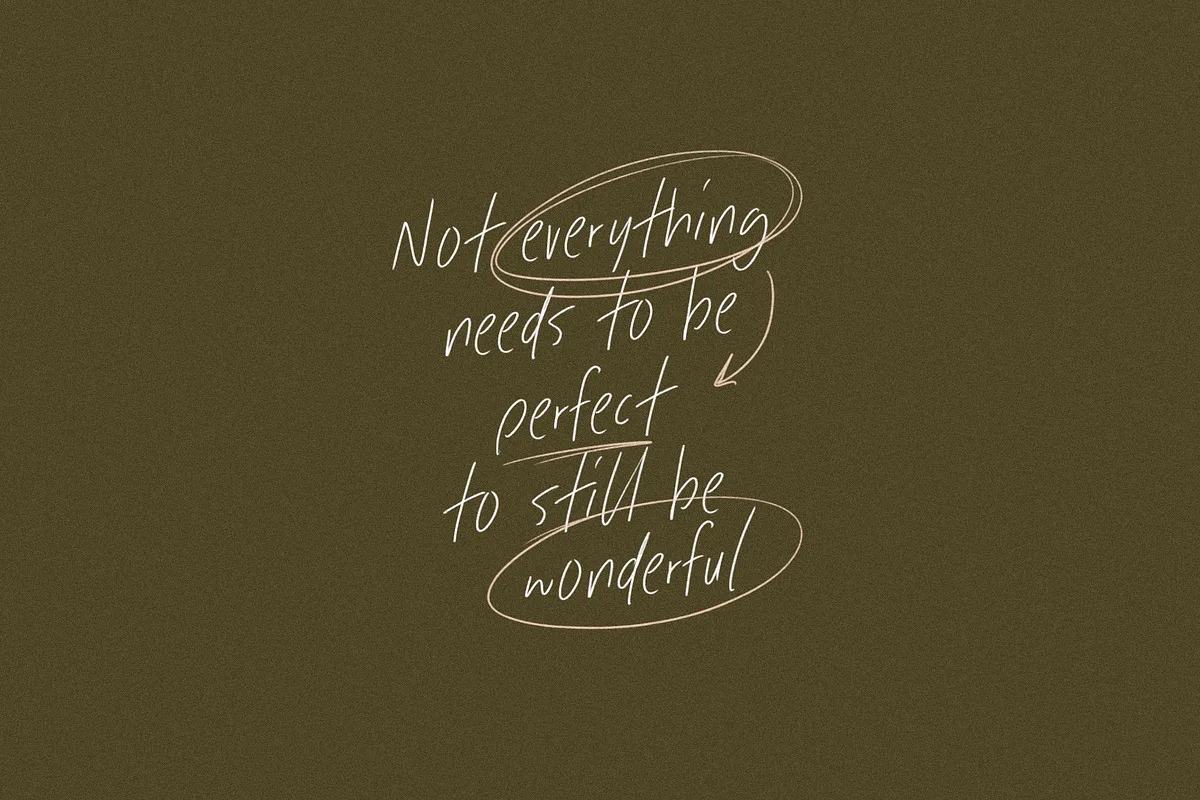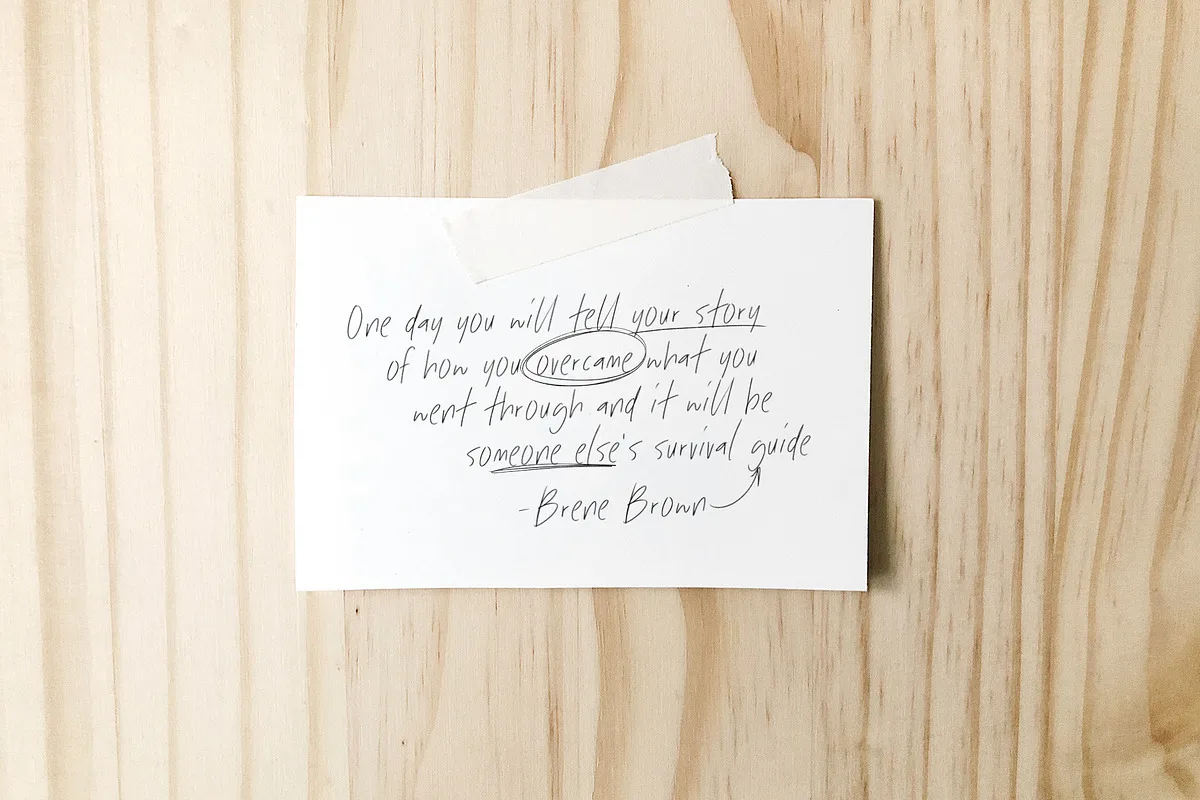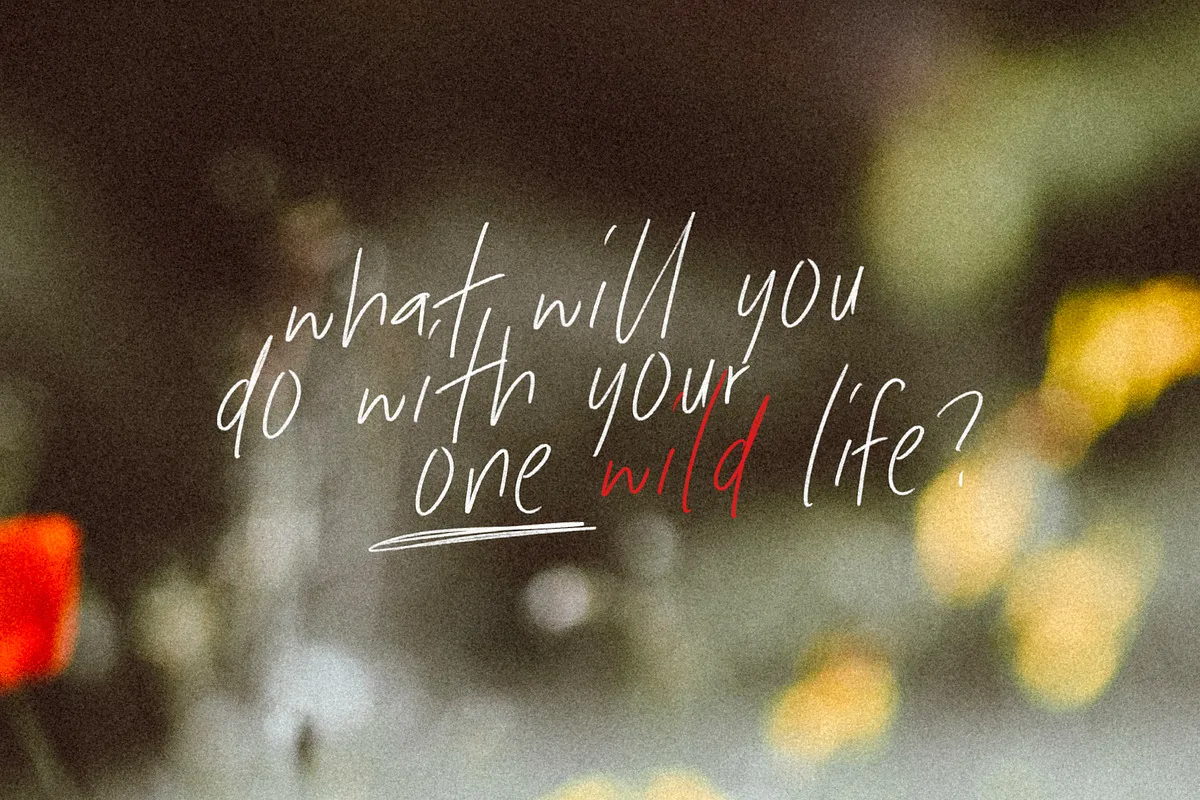
Oliver Label is a pencil textured SVG font. It solves a problem many creatives face – the endless search for a realistic pencil-textured font to add handwritten notes to images, quotes, blog posts, and more without having to do it themselves. It’s guaranteed to leave a lasting impression on social media posts, advertisements, posters, products packaging & more.